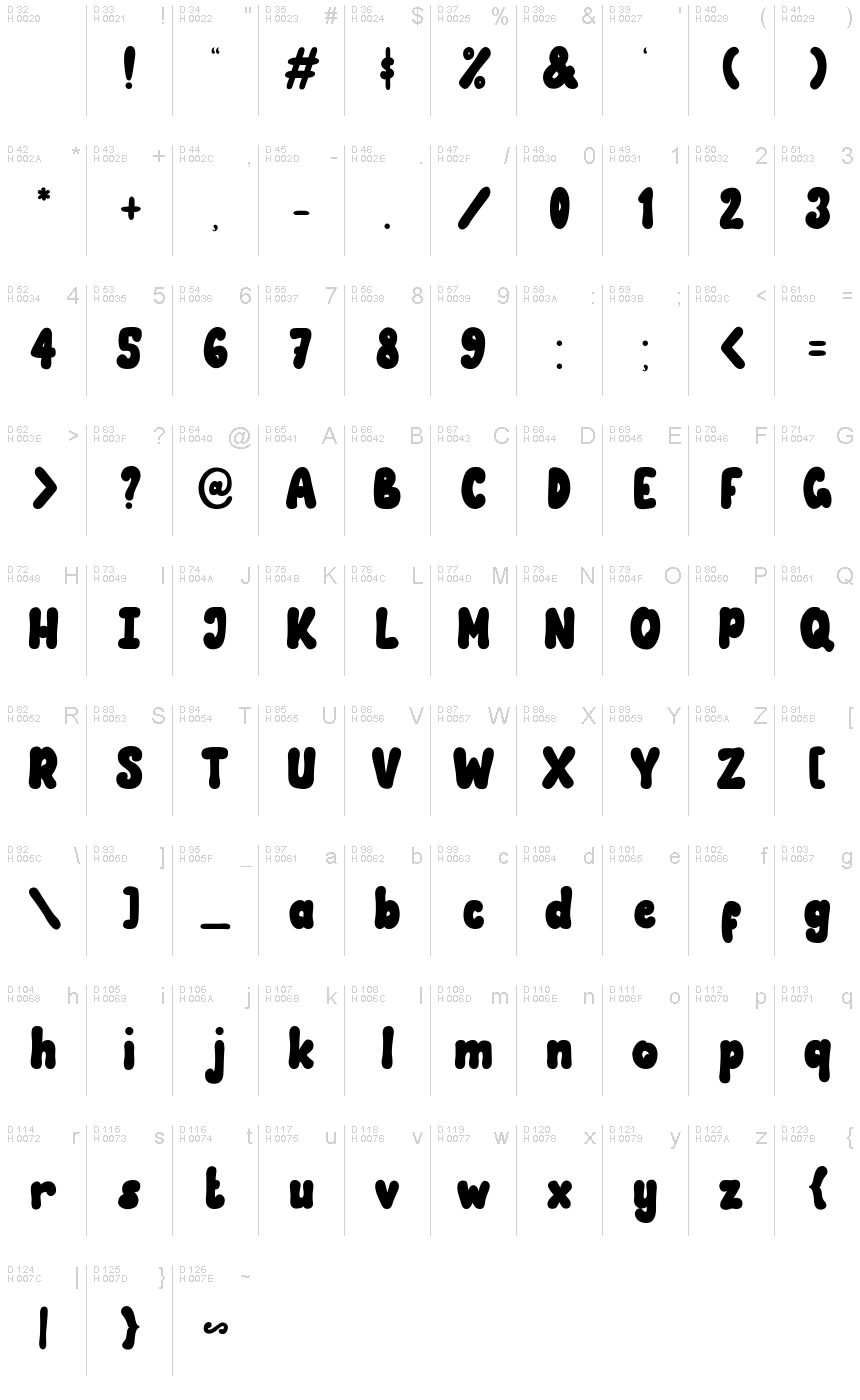
Lizadah
Lizadah, designed by Ikrar Bey Khubaib, is a bold and playful display font that exudes a cartoonish charm. Its semi-condensed letterforms boast an aesthetic that is at once robust and whimsical, making it an excellent choice for projects that require a touch of levity without sacrificing impact. The font's solid structure coupled with its smooth curves offers a friendly yet assertive visual statement.
The Lizadah font finds its strength in versatility; it's perfectly suited for anything from children's literature and gaming interfaces to creative branding and eye-catching headlines. This typeface's approachable style invites designers to add personality to their creations while maintaining readability and emphasis. Whether on screen or print, Lizadah adds a unique flair that can make any design stand out with its lively character.